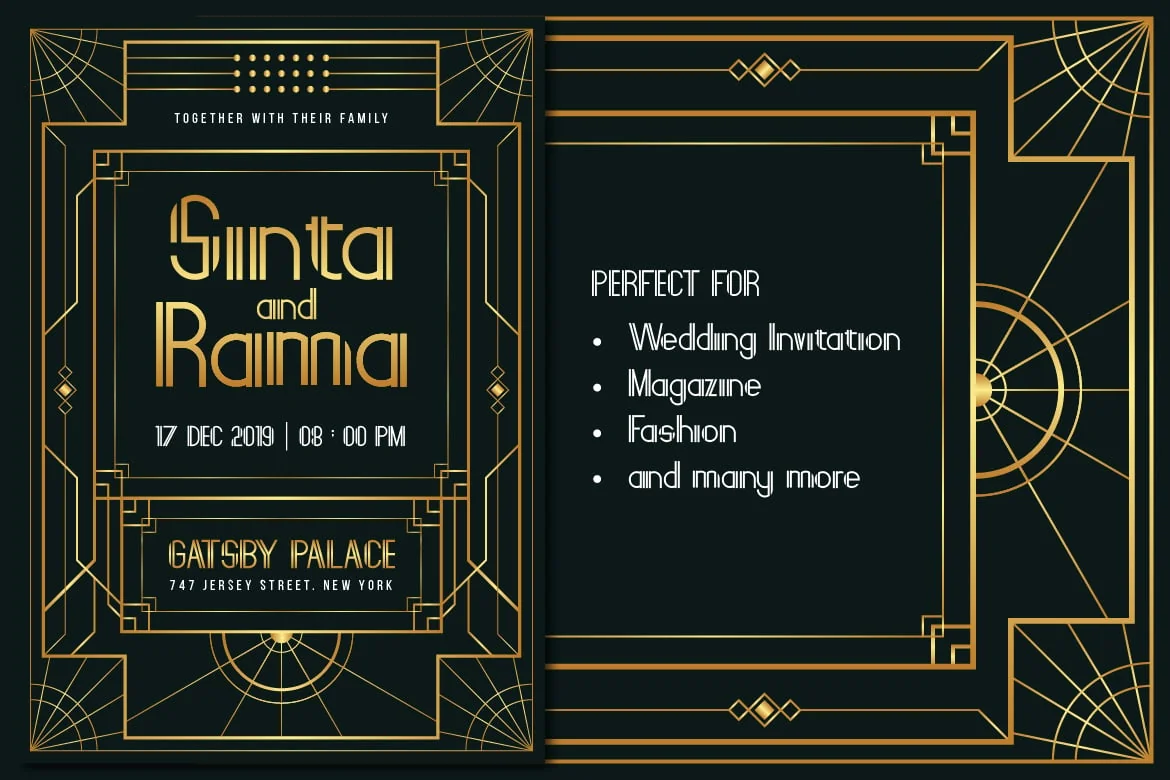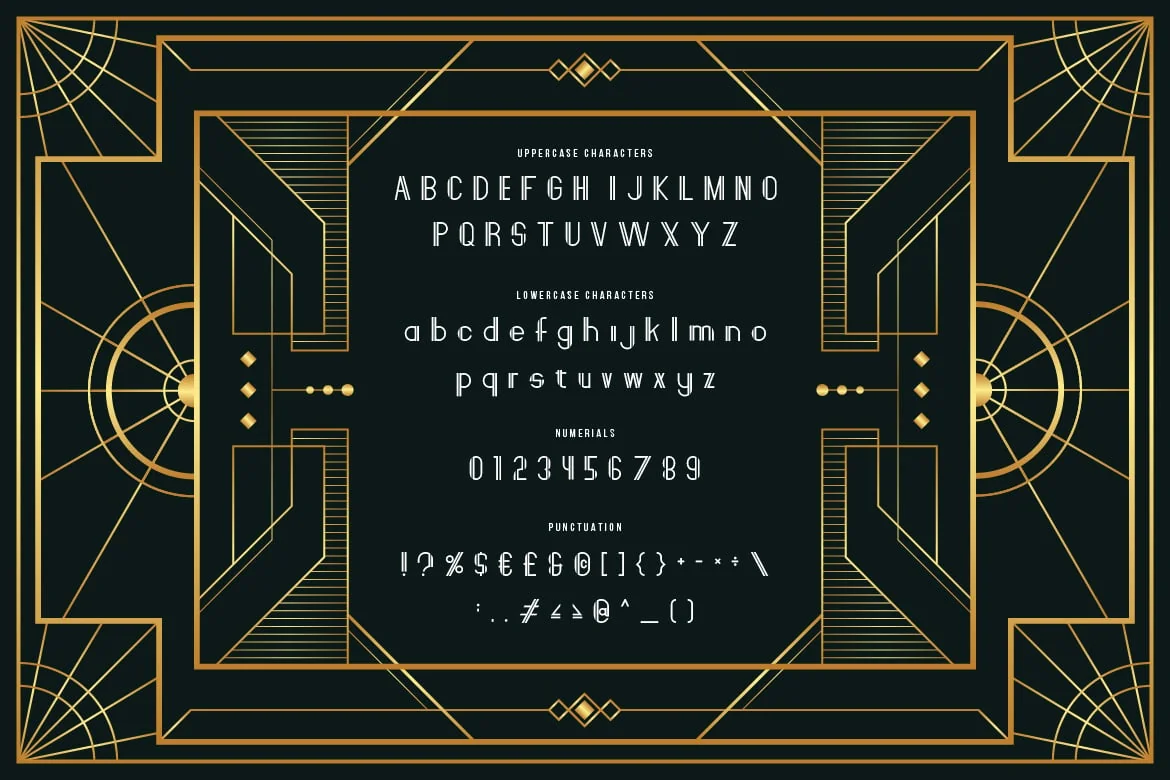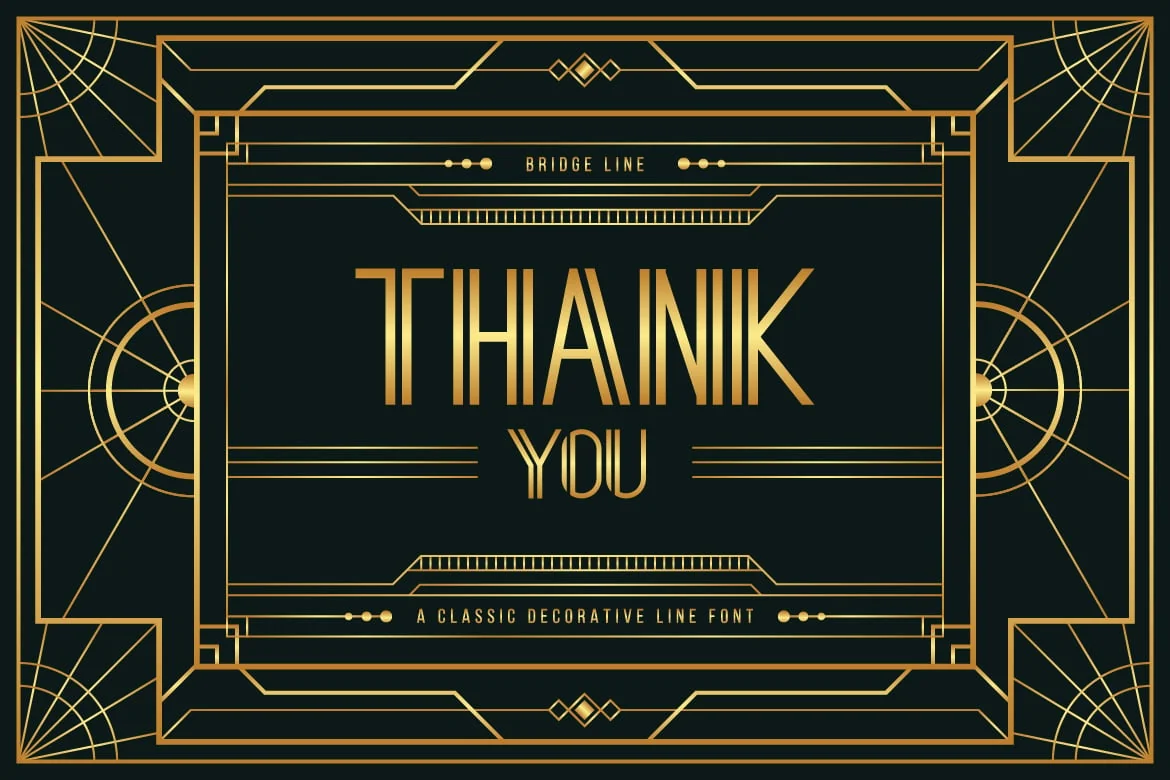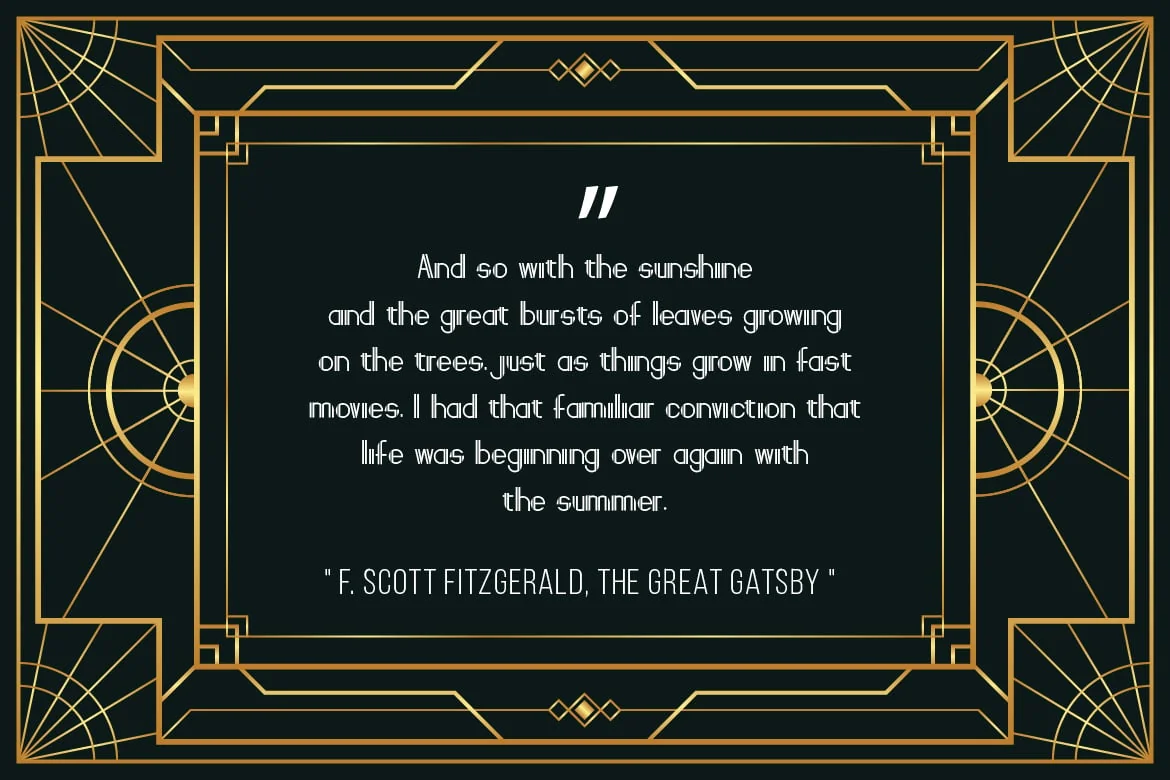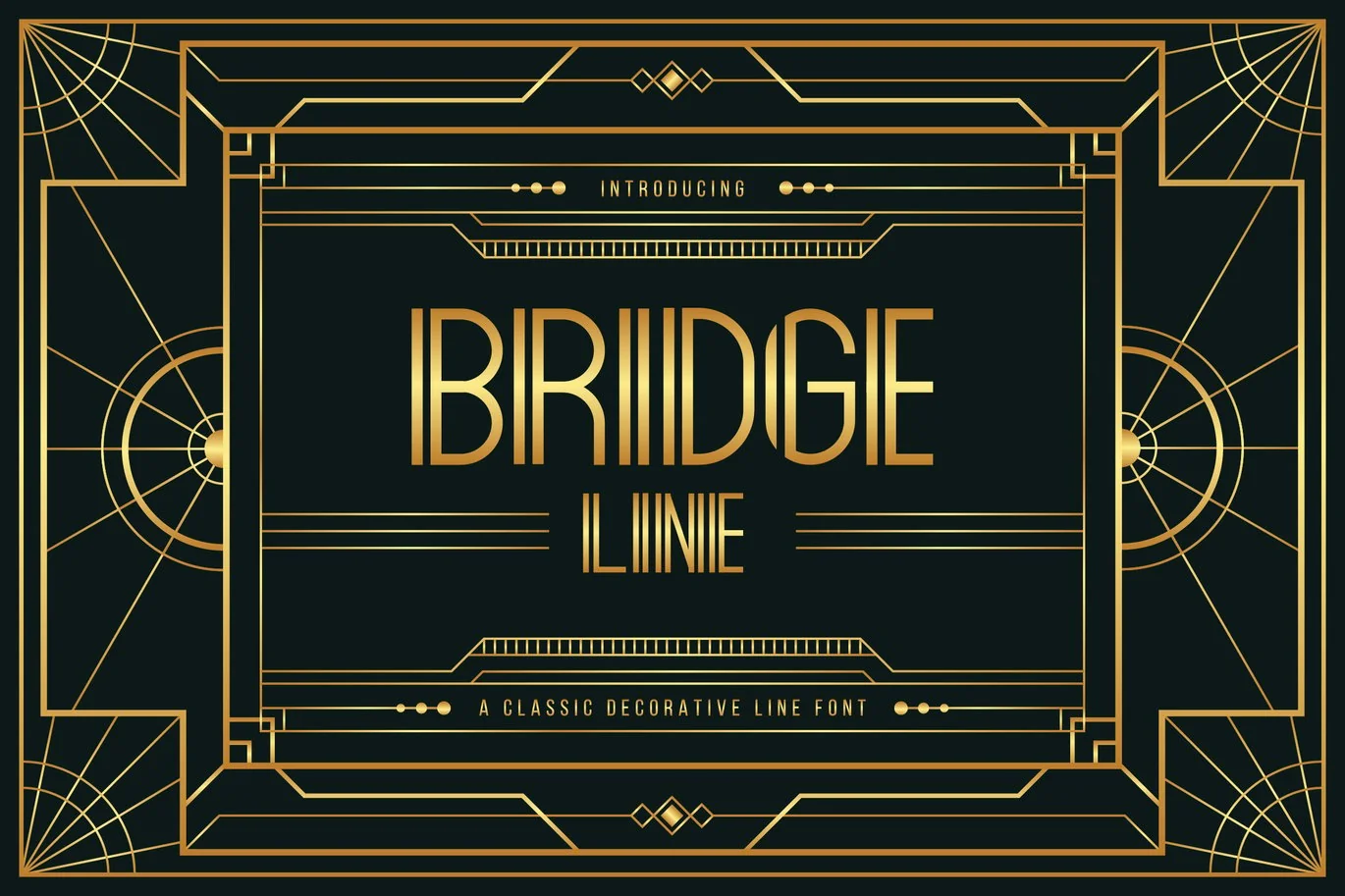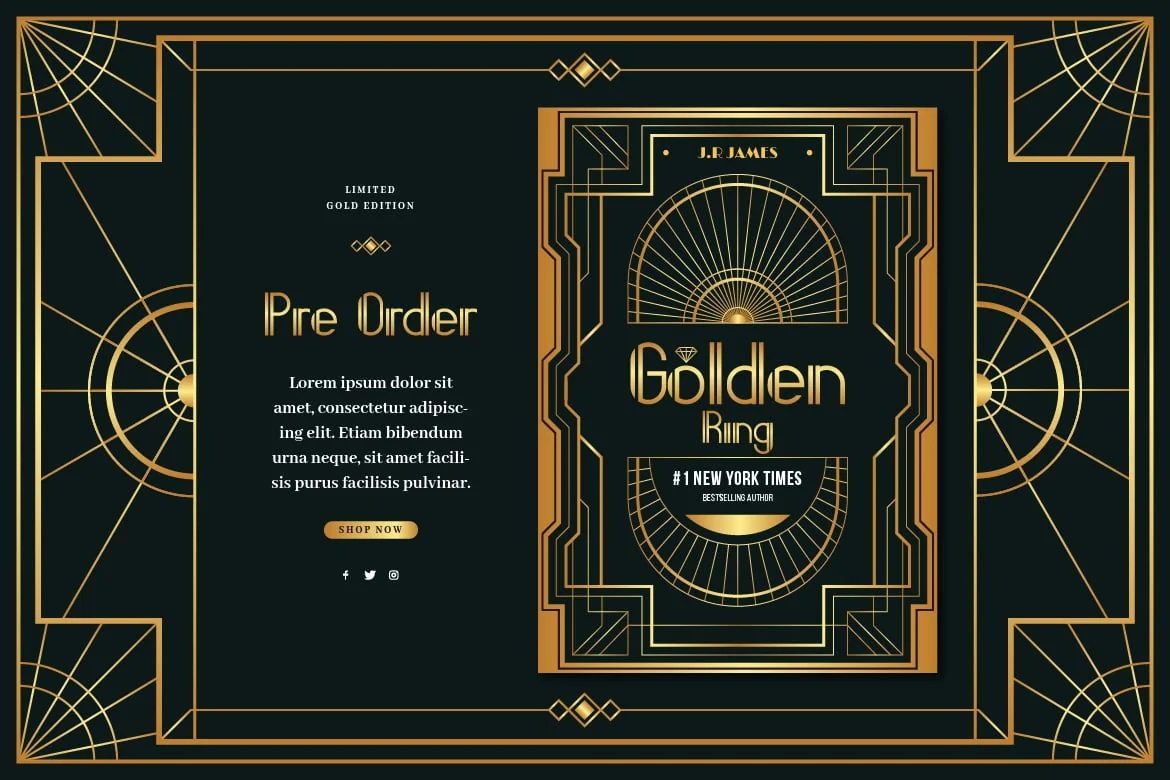
Bridge Line – Art Deco Display Typeface
Introducing Bridge Line font. Are you looking for a bold and solid art deco display font that has a vintage geometric feeling? We can help! Try to download our Bridge Line art deco font. The font is suitable to use for many occasion such as invitation, banner, movie title, brand, event, and many more π